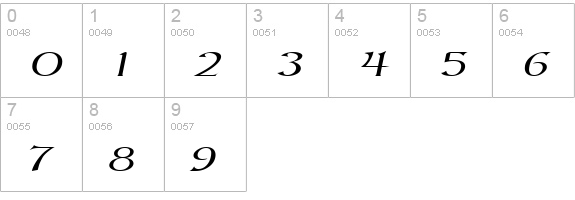
Kelt Extended Italic is a distinctive, extended-width, italic variant in the Kelt typeface family \xE2\x80\x94 well suited to design and typography projects.
Kelt Extended Italic is an exquisite typeface that exudes elegance and sophistication. Its slanted and elongated letterforms add a touch of drama and flair to any project. This font is a perfect choice for those seeking a distinctive and stylish look. With its flowing curves, Kelt Extended Italic captures attention and draws the reader in. It is versatile and adaptable, making it suitable for a wide range of applications, from branding and advertising to editorial design and web graphics. One of the most appealing aspects of Kelt Extended Italic is that it is freely available to download at FontsMarket.com. This means that designers and creatives can access this beautiful typeface without any financial barriers. By making it free, the creators of Kelt Extended Italic have ensured that it is accessible to all, regardless of budget limitations. Whether you are working on a personal project or a client's brief, Kelt Extended Italic will elevate your design to new heights. Its unique and captivating aesthetic will leave a lasting impression on viewers, making it a valuable asset for any creative endeavor. Download Kelt Extended Italic from FontsMarket.com today and embark on a journey of creativity and visual excellence. Let this font guide your designs and express your distinct style with its free availability and unparalleled beauty.